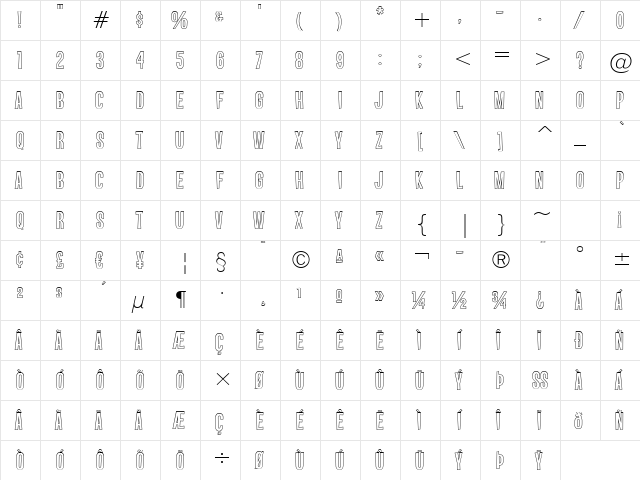
Vanishing Boy BTN Outline Regular
Design Context for Vanishing Boy BTN Outline Typeface
Vanishing Boy BTN Outline is built around its visual character rather than neutral utility — its distinctive forms are designed to make an impression at display sizes.
Font Pairing: Pair with a clean neutral sans-serif for body copy to let Vanishing Boy BTN Outline's character lead without overwhelming the composition.
Pro Tip: Treat Vanishing Boy BTN Outline as the centrepiece of your typographic hierarchy. One strong heading set in a decorative face can carry an entire layout.